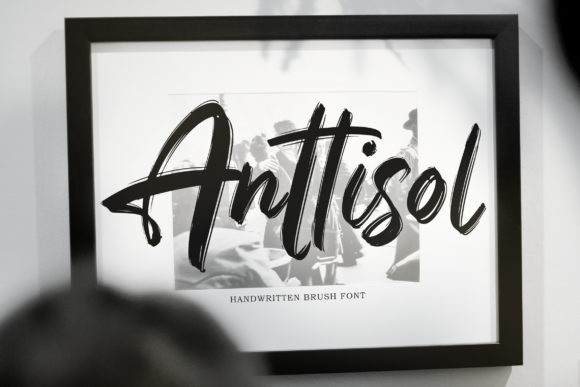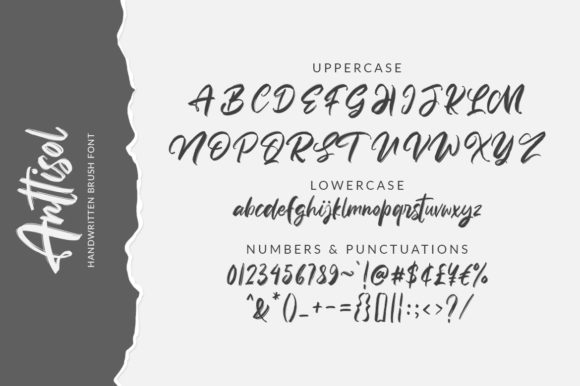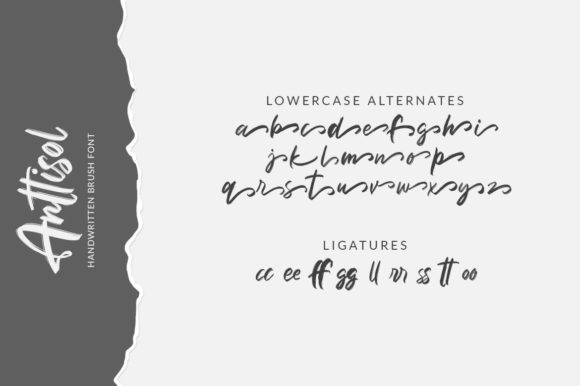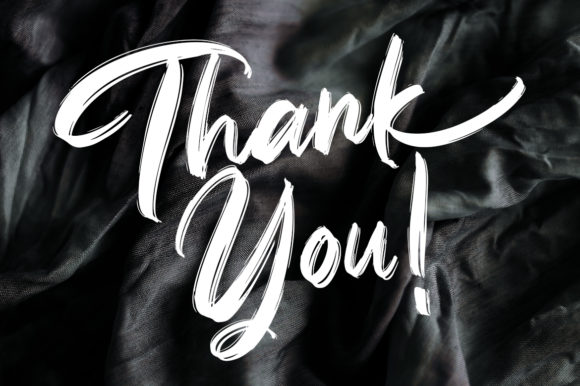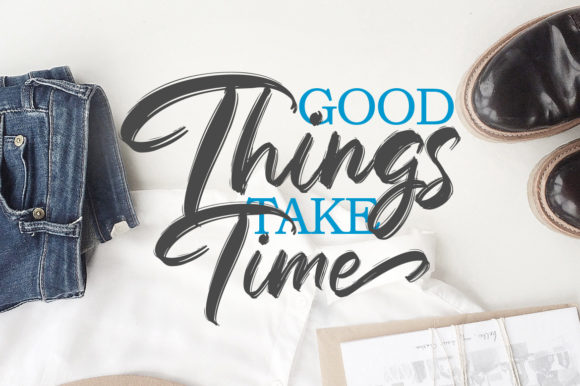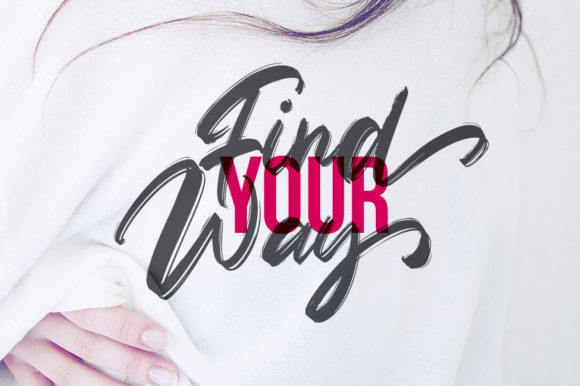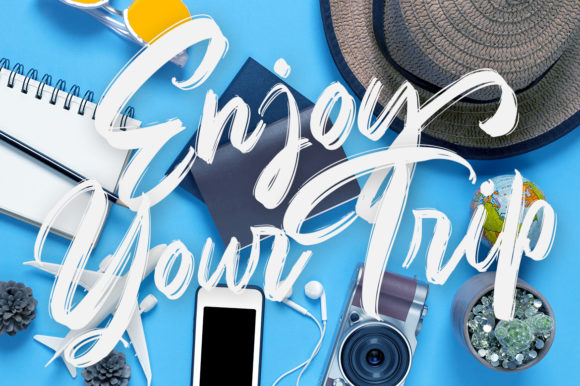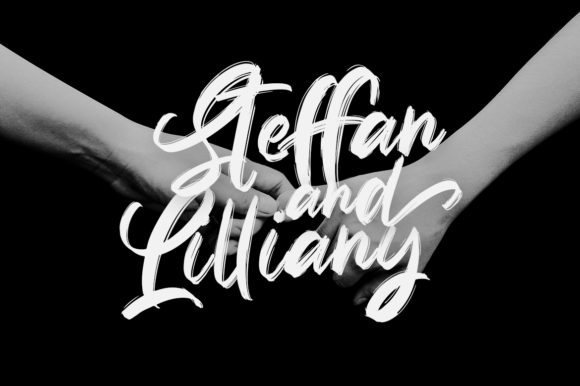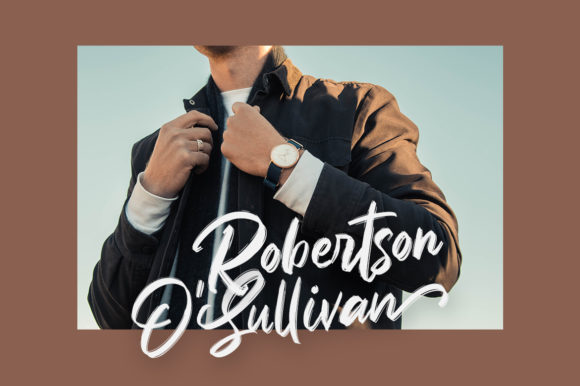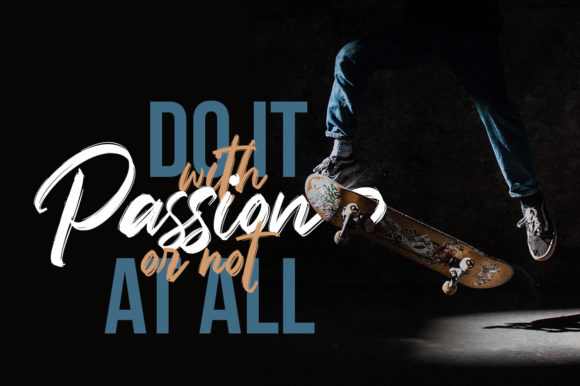
HomeScript FontsAnttisol Font Script Fonts Anttisol Font FacebookXPinterestWhatsApp Anttisol Font Poster 2 Anttisol Font Poster 3 Anttisol Font Poster 4 Anttisol Font Poster 5 Anttisol Font Poster 6 Anttisol Font Poster 7 Anttisol Font Poster 8 Anttisol Font Poster 9 Anttisol Font Poster 10 Anttisol Font Poster 11 Anttisol Font Poster 12 About Anttisol Font Anttisol is a bold and funky handwritten font with a cool charm. Get inspired by its unique flavor! DOWNLOAD NOW People also explored Maria Alexa Font Ulfberht Font Amelia Font Magicstar Font Rainy Day Font Castel Font Richard Signatera Font Emma Font Minimalist Font 418 0 TagsAnttisol Font Previous articleAllitha Script FontNext articleEvangeline Font LEAVE A REPLY Cancel reply Comment: Please enter your comment! Name:* Please enter your name here Email:* You have entered an incorrect email address! Please enter your email address here Website: Save my name, email, and website in this browser for the next time I comment. Personal Use Free Zephan Personal Use Free Read more about this font The 10 Best Handwriting Fonts to Add Personality to Your Designs Blog Read more about this font Green Farmhouse Personal Use Free Read more about this font Amillina Monogram Personal Use Free Read more about this font BLOG How to Install and Use Fonts on Windows, macOS, and Web Projects How to Install and Use Fonts on Windows, macOS, and Web Projects Fonts are a crucial part of design and branding. Whether you’re designing a... Elegant Wedding Invitation Fonts – Handwritten & Script Fonts To increase your work productivity, choose the most readable fonts. Exploring Font Trends